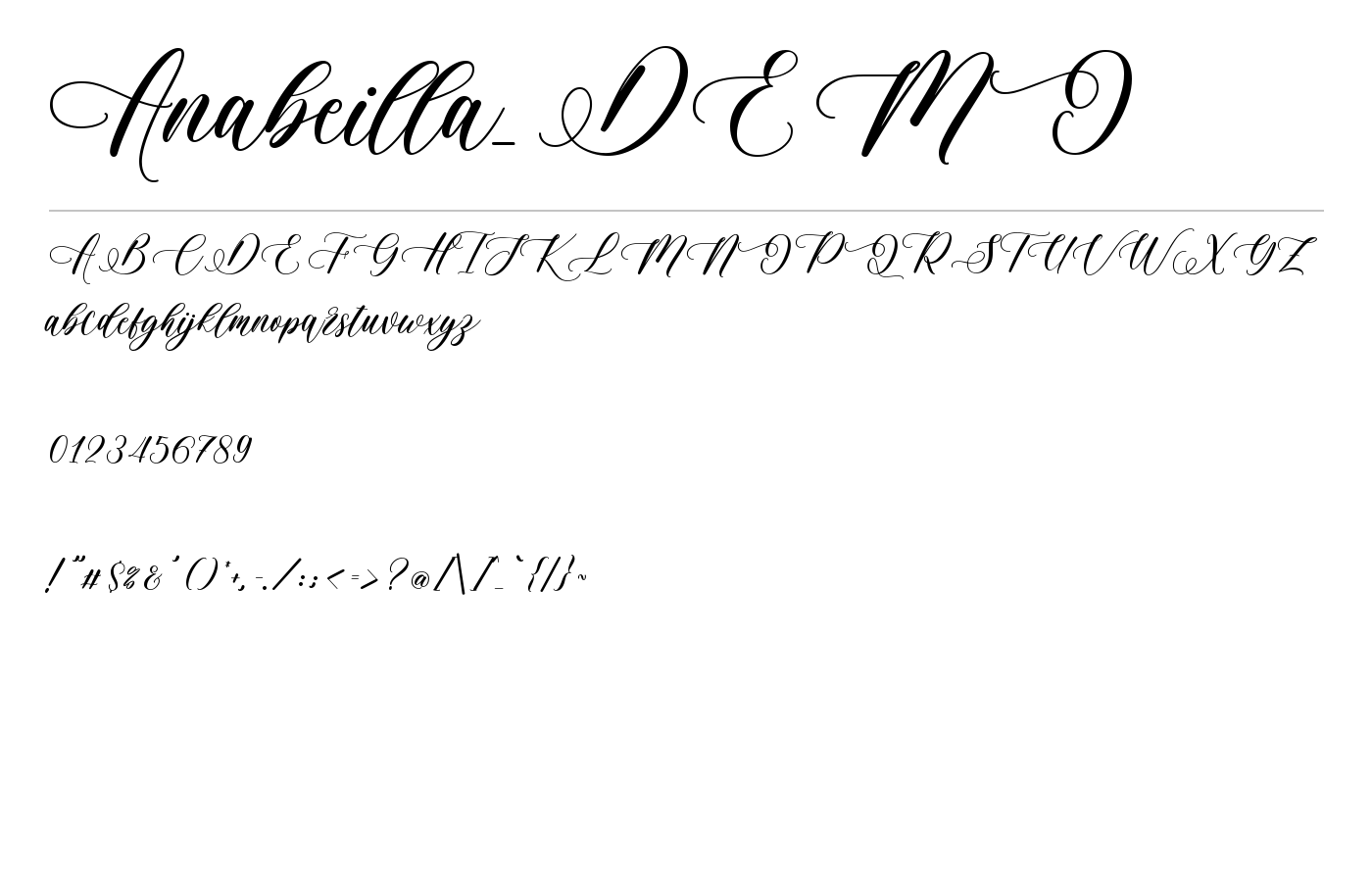
Anabeilla_DEMO is an elegant script font with a high-contrast, flowing style that combines delicate, calligraphic strokes with graceful swashes. Its slender letterforms and sophisticated curves make it perfect for luxury branding, invitations, and stylish headlines where a refined, feminine touch is desired. This font’s ornamental yet readable nature lends charm and personality to designs that seek a romantic or upscale feel.
Anabeilla_DEMO Font
About Anabeilla_DEMO Font